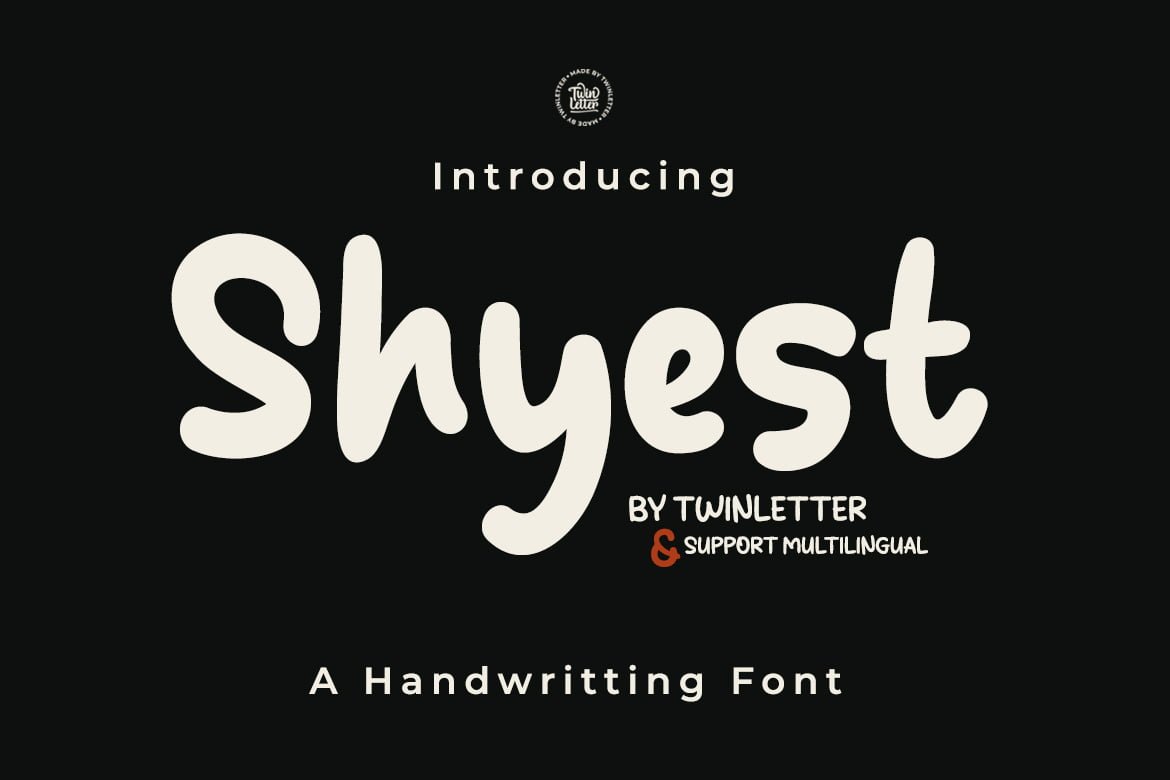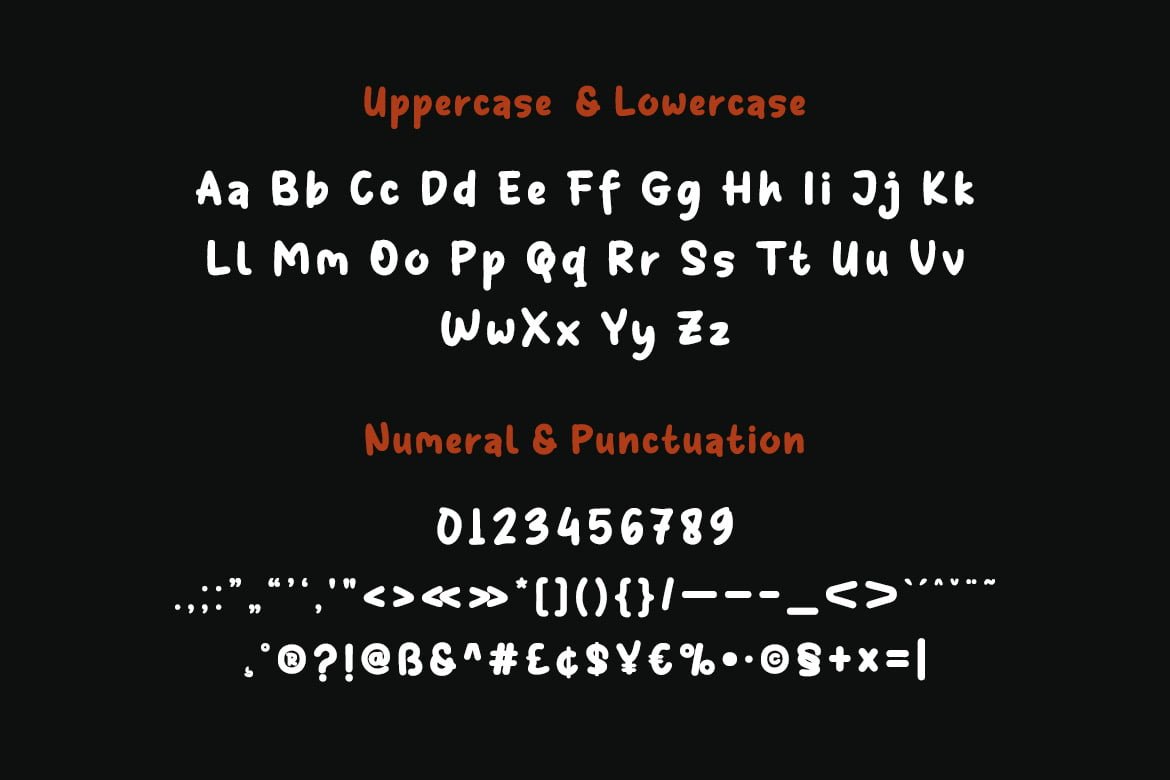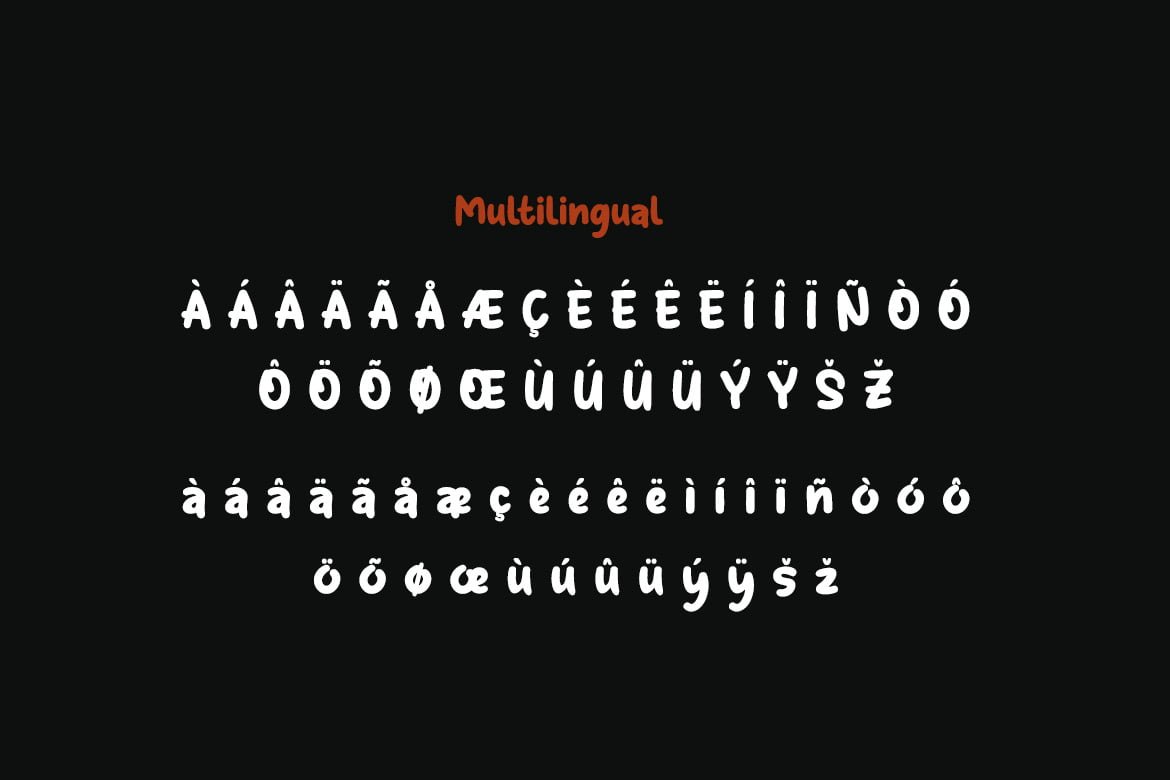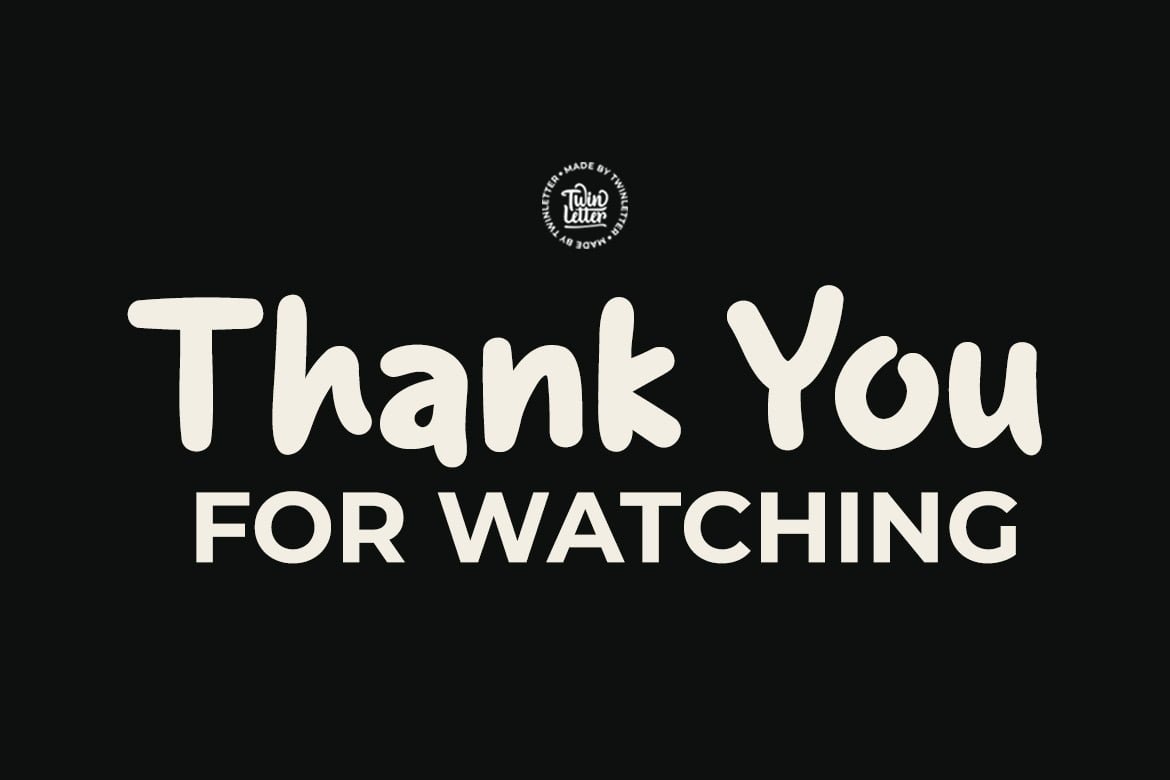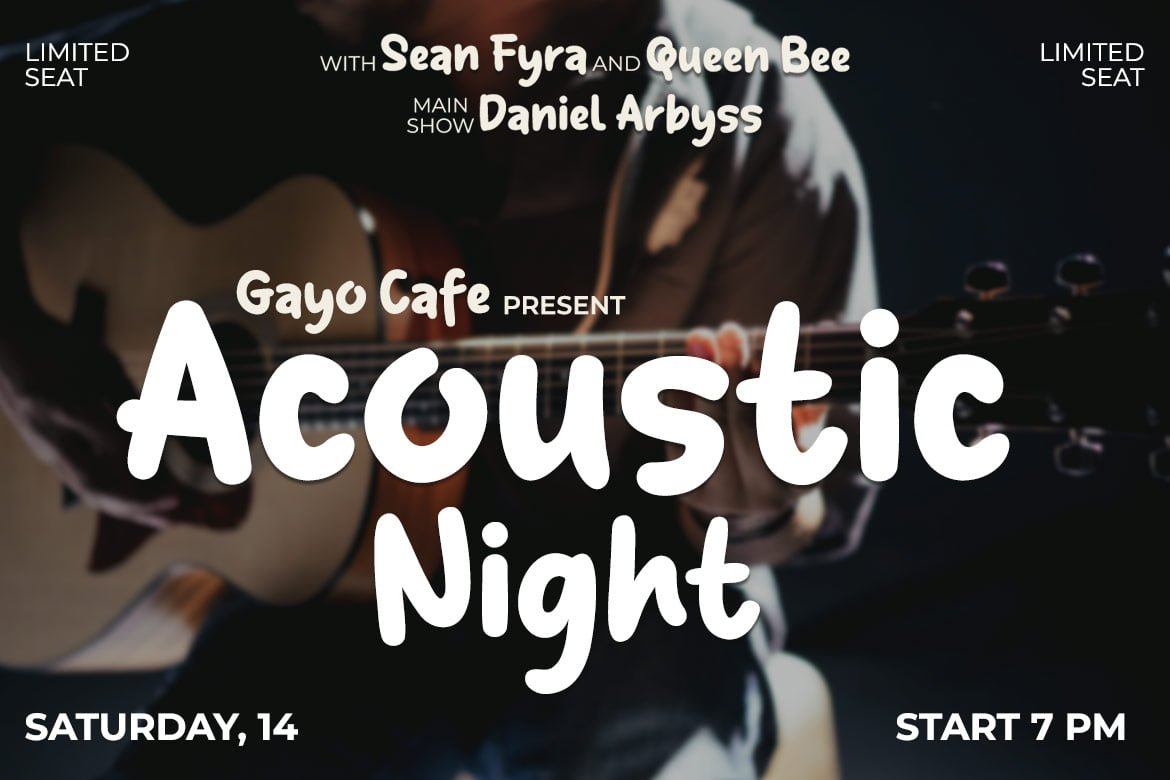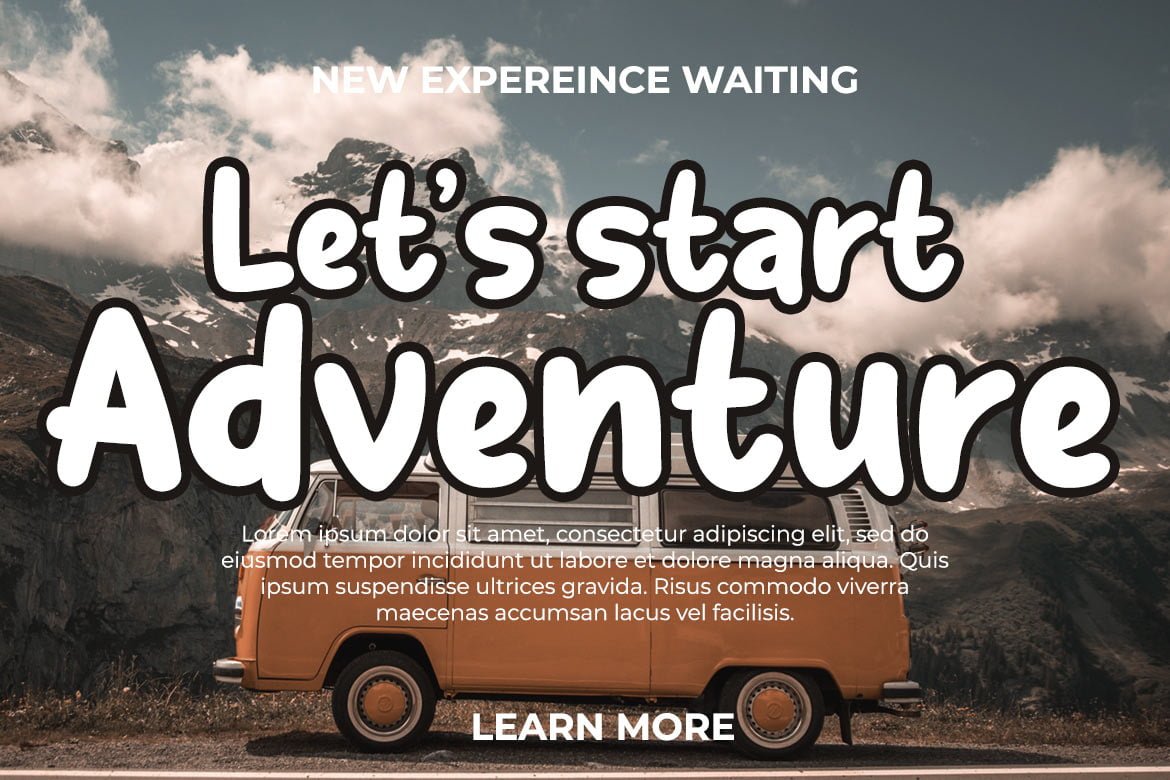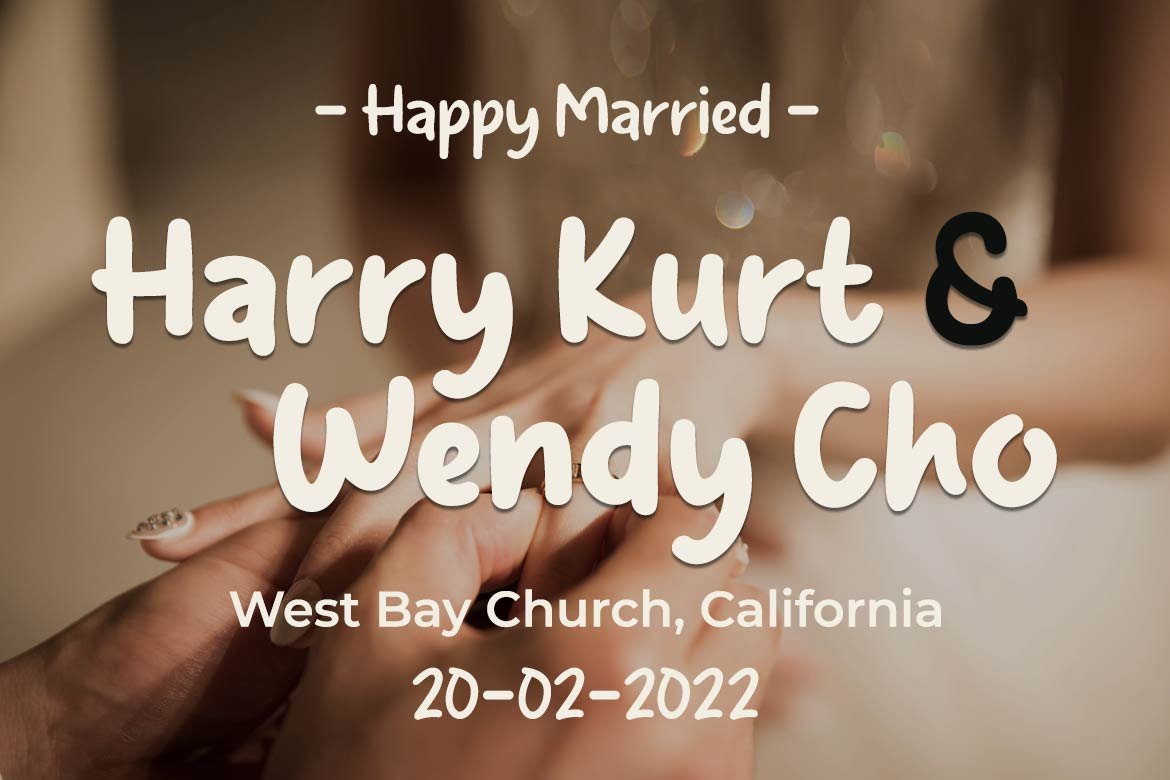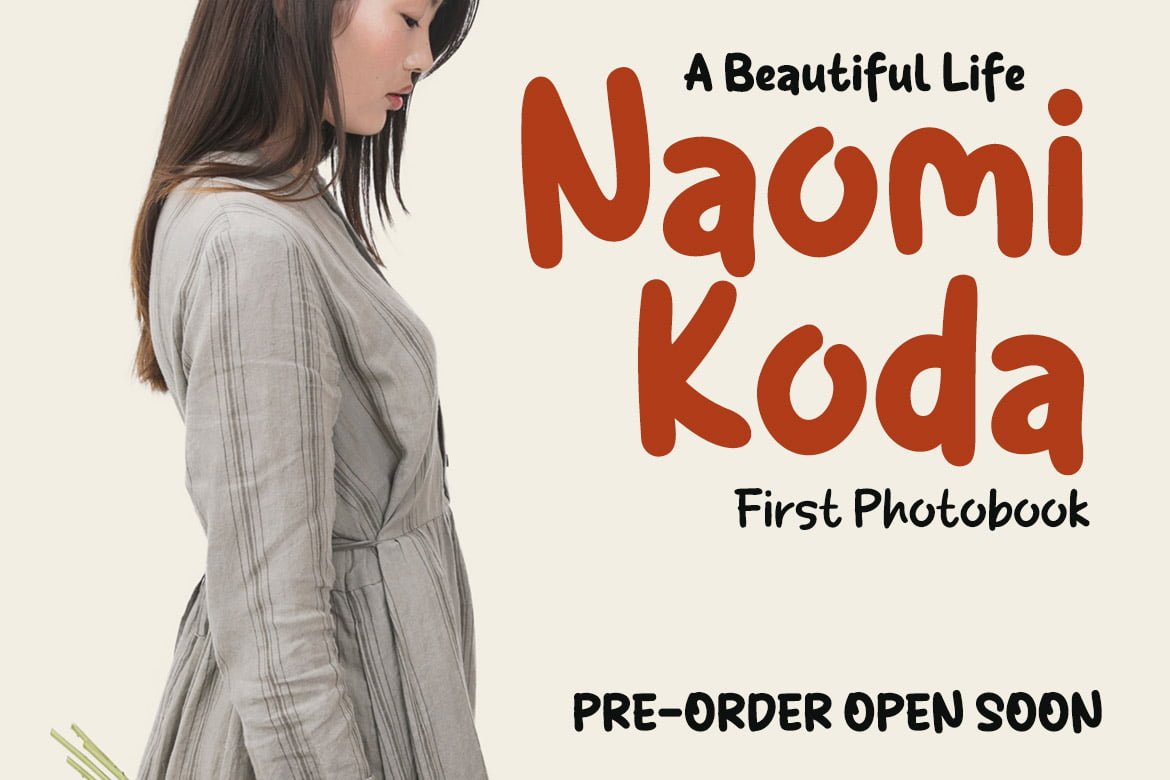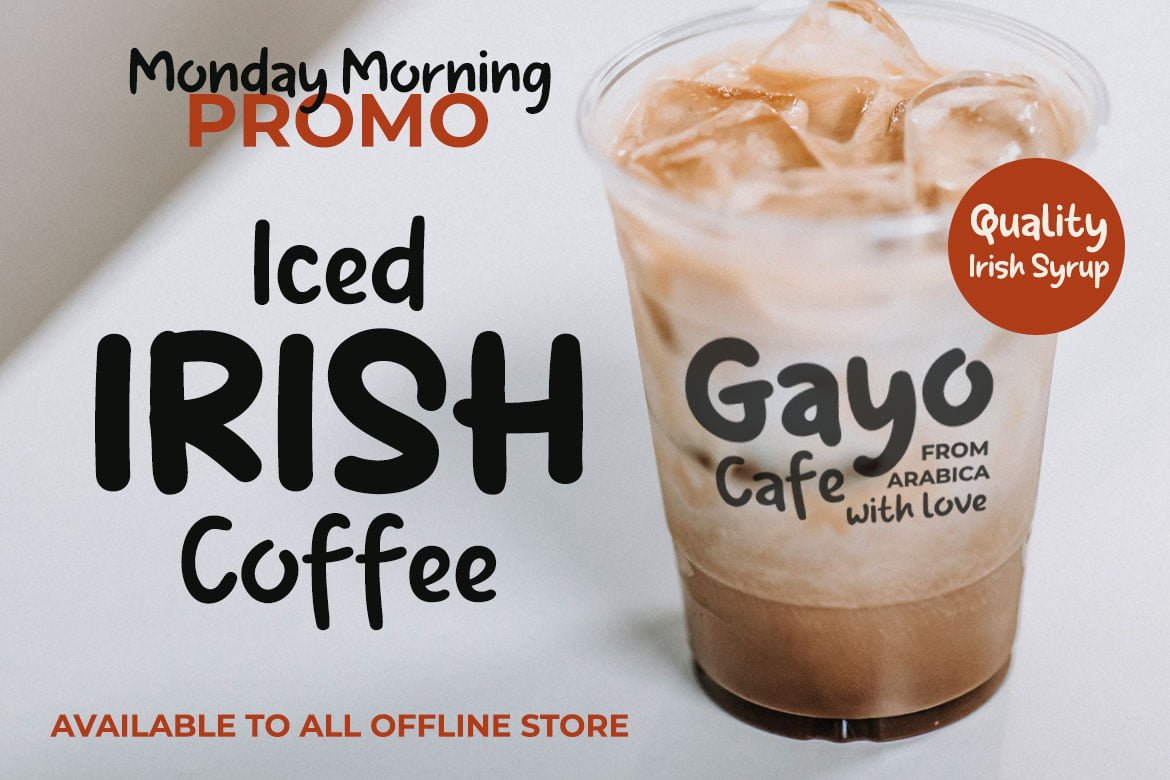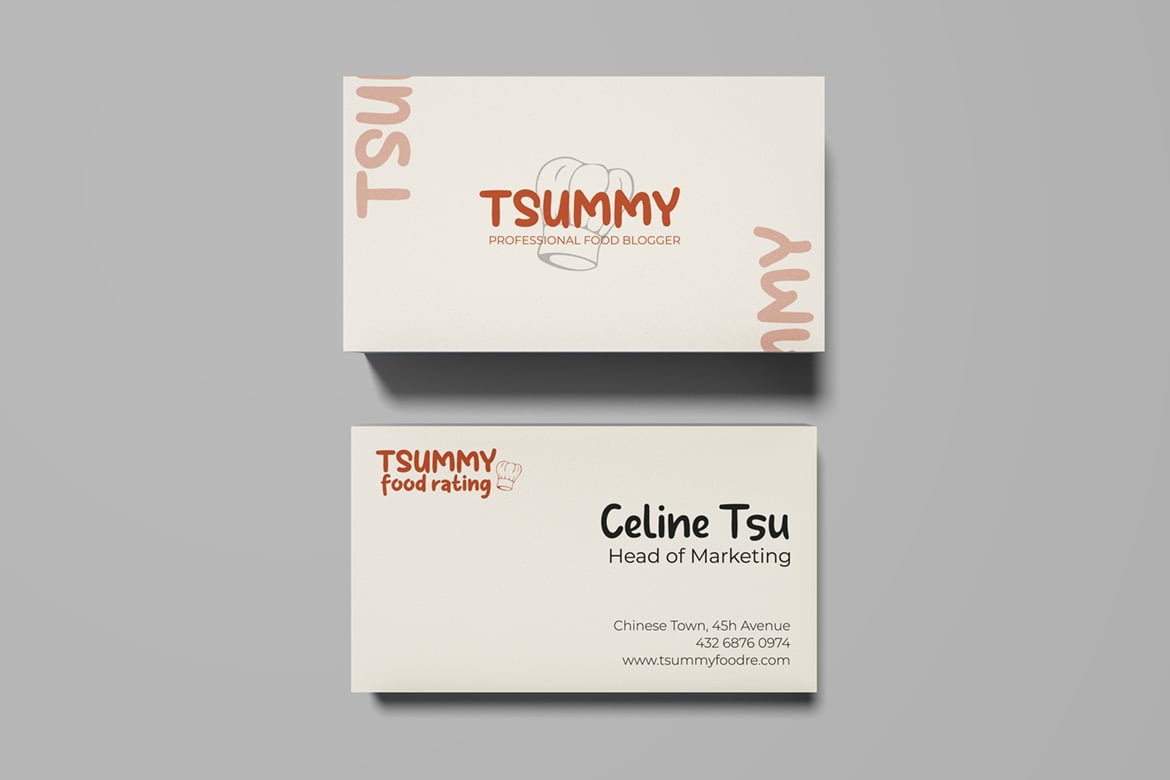
Shyest
Shyest is a handwritten typeface that has a dramatic, natural feel to it. This typeface is ideal for your unique projects, particularly those that demand a human touch; of course, this font is the answer to all of your amazing projects!
This font is designed with a natural touch of handwriting which is refined to create a portion and composition that suits your needs. So this font is suitable for craft, children’s writing, adventure posters, food banner titles, wedding invitations, product packaging logos, quotes, social media page covers, furniture banner headlines, book covers, and much more.
• Fonts include multilingual support for; Afrikaans, Albanian, Croatian, Czech, Danish, Dutch, English, Estonian, Finnish, French, German, Hungarian, Italian, Norwegian, Polish, Portuguese, Slovak, Slovenian, Spanish, Swedish